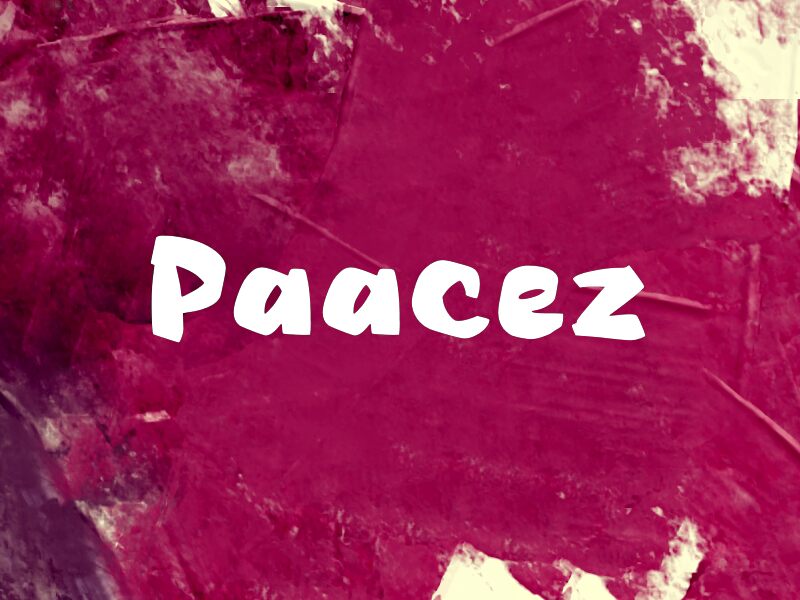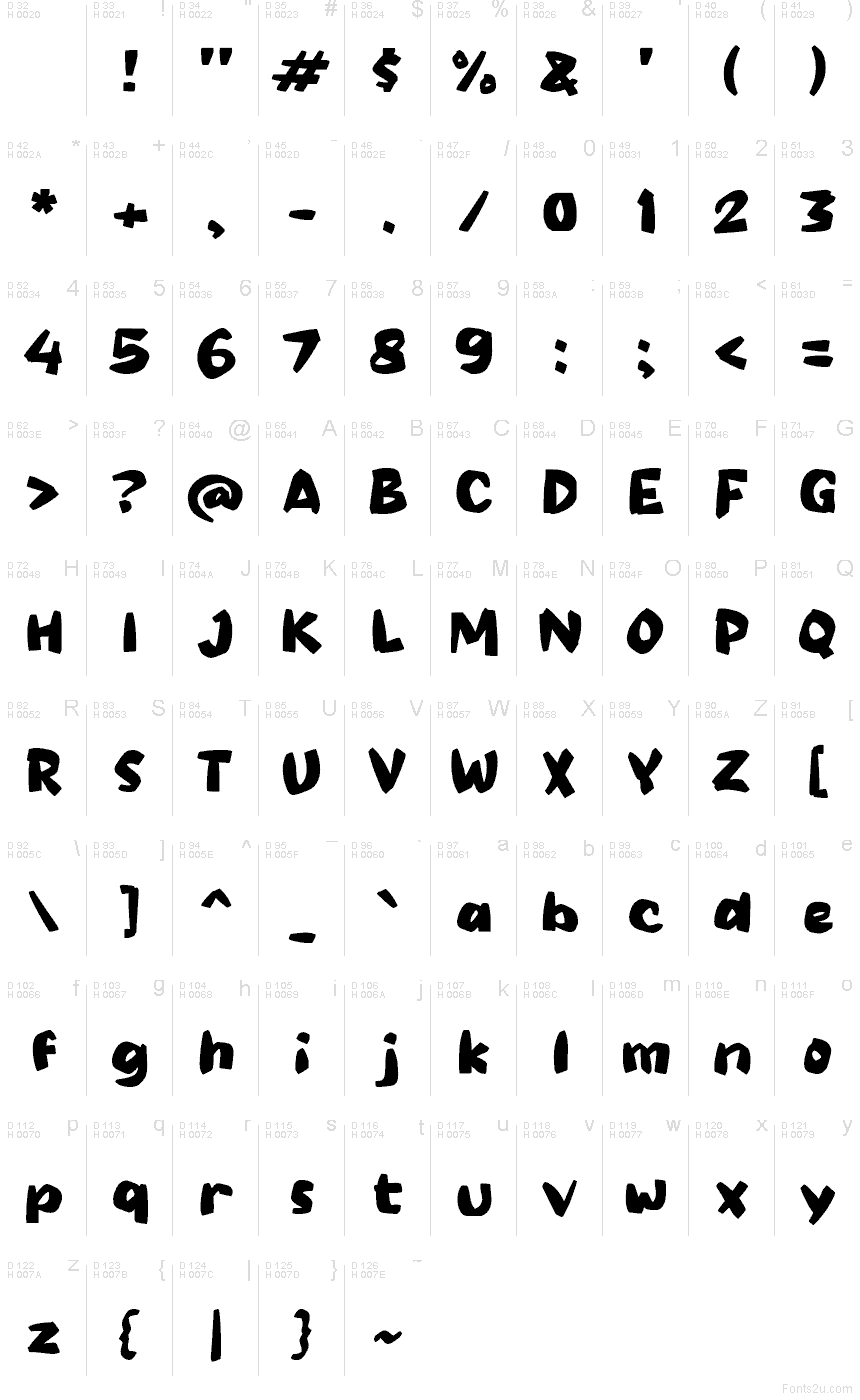
Paacez
Paacez font by wep is a free cartoon display typeface that feels like it was drawn with a thick, inky marker on glossy paper. The letters are chunky, rounded, and slightly wobbly, giving every word a bouncy, hand-made energy. Its bold weight and tight rhythm help headlines pop instantly, while the soft curves keep it friendly rather than chaotic.
Using Paacez, you can give instant personality to kids’ book covers, game titles, playful logos, party invitations, stickers, and bright social media graphics. This free font shines at larger sizes where its inky edges and uneven contours can really be seen. For supporting text, pair Paacez with a clean geometric sans to keep layouts readable while the cartoon shapes handle the fun.